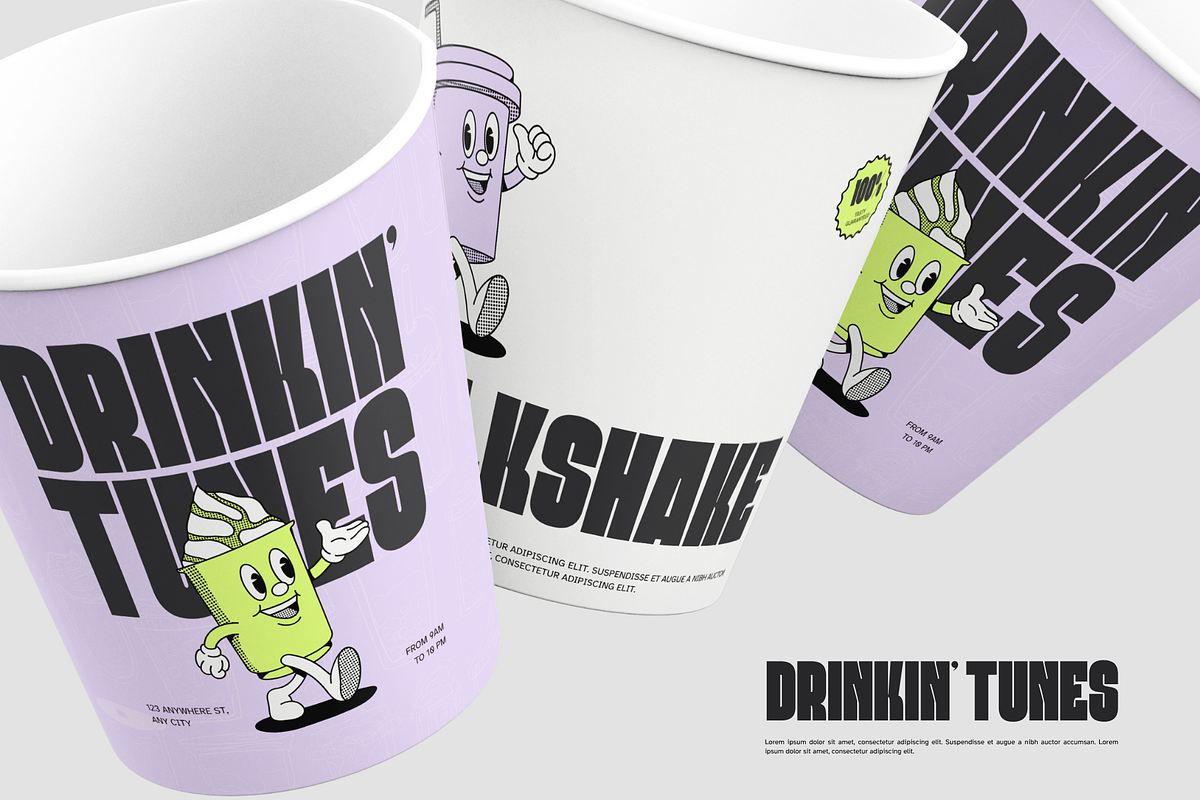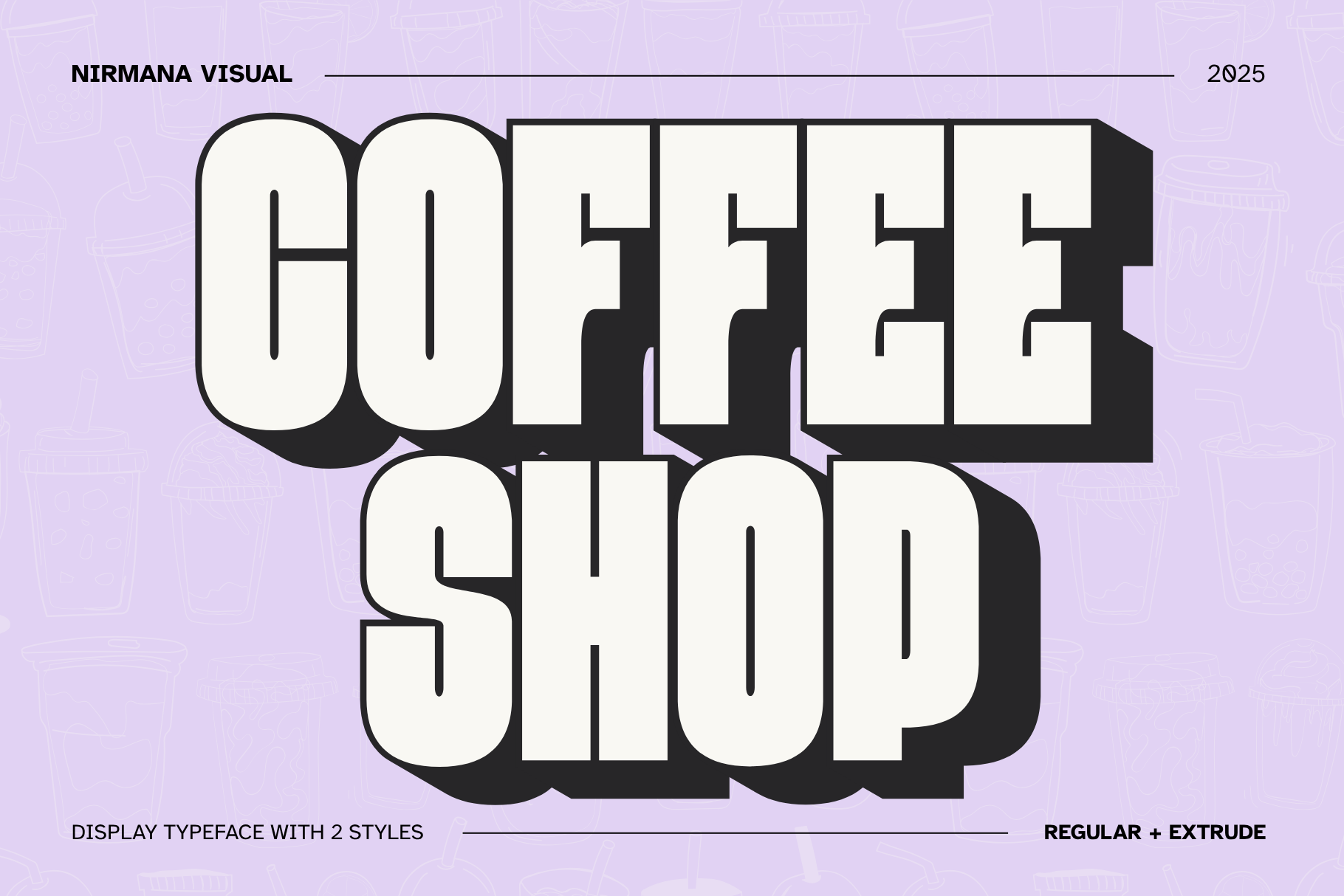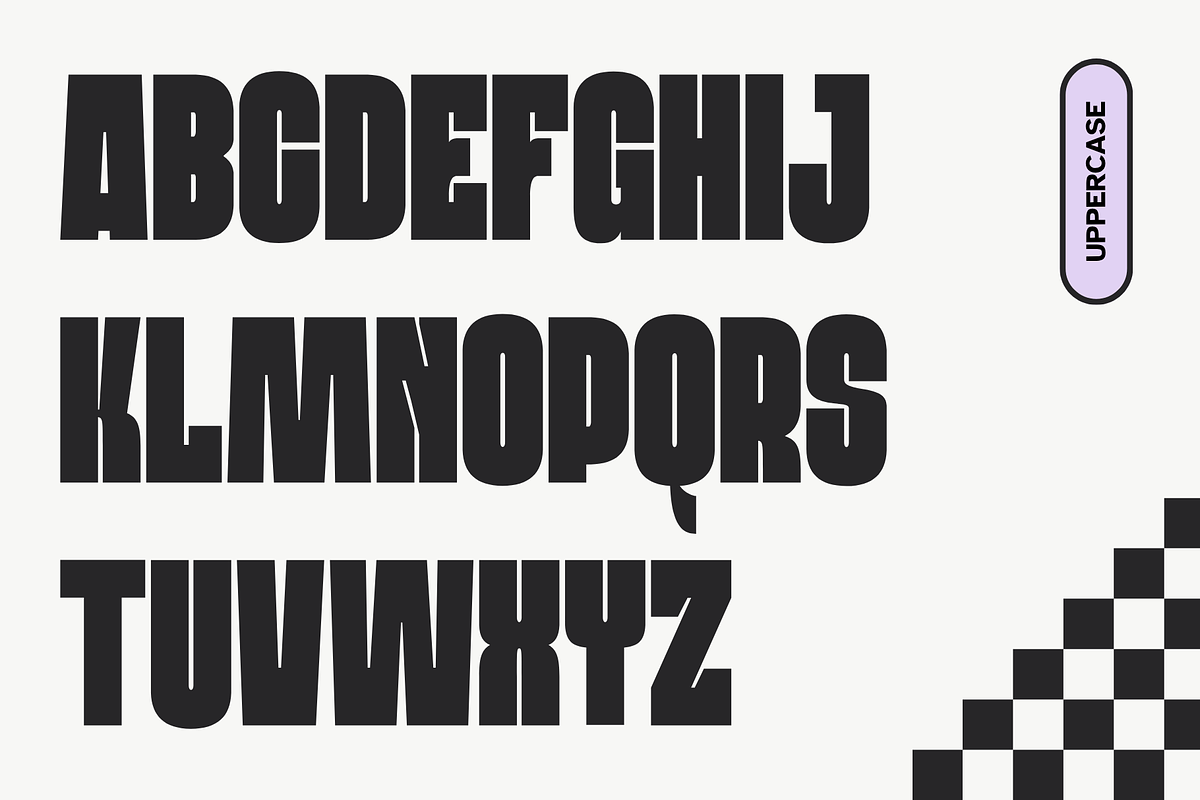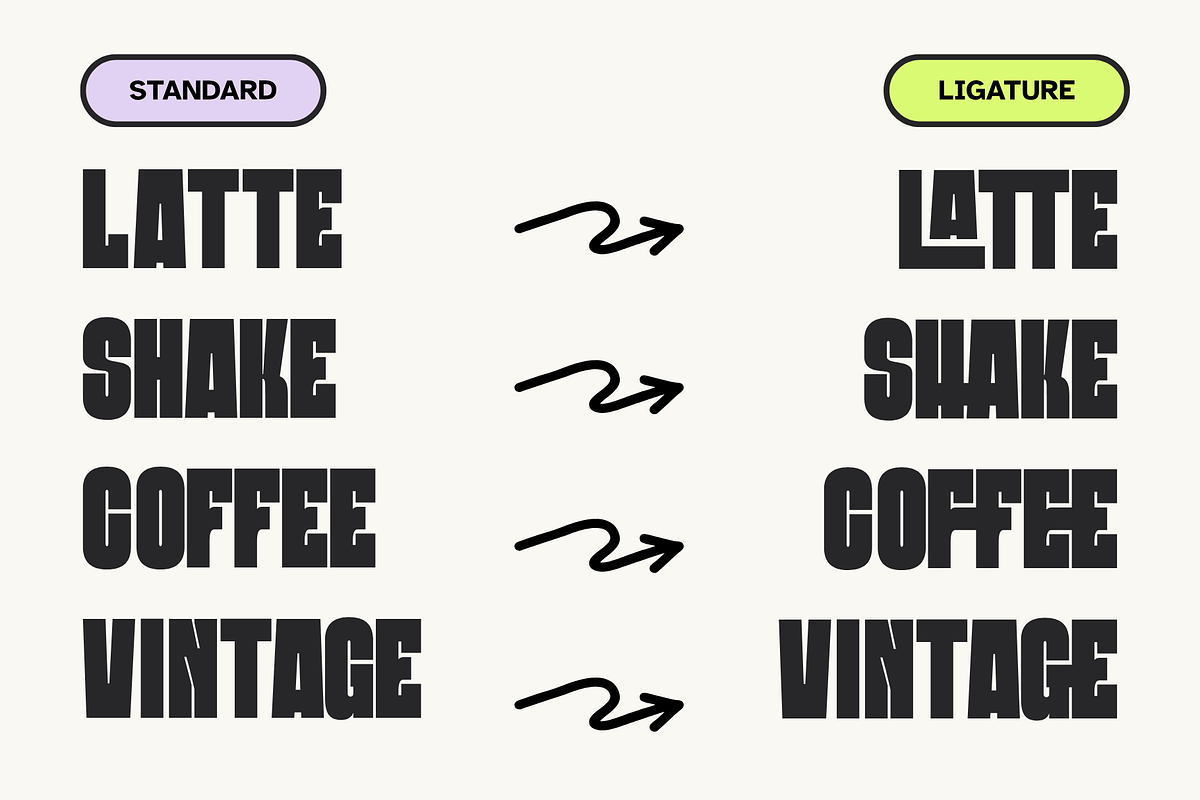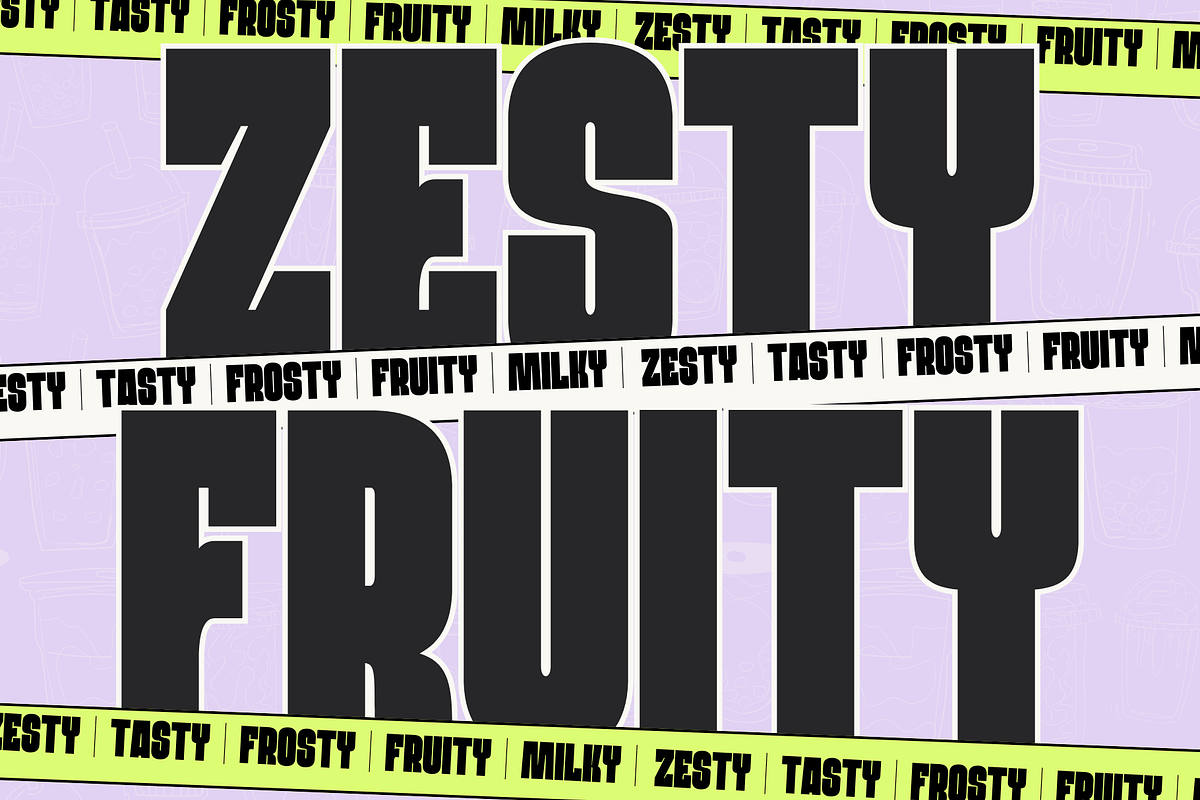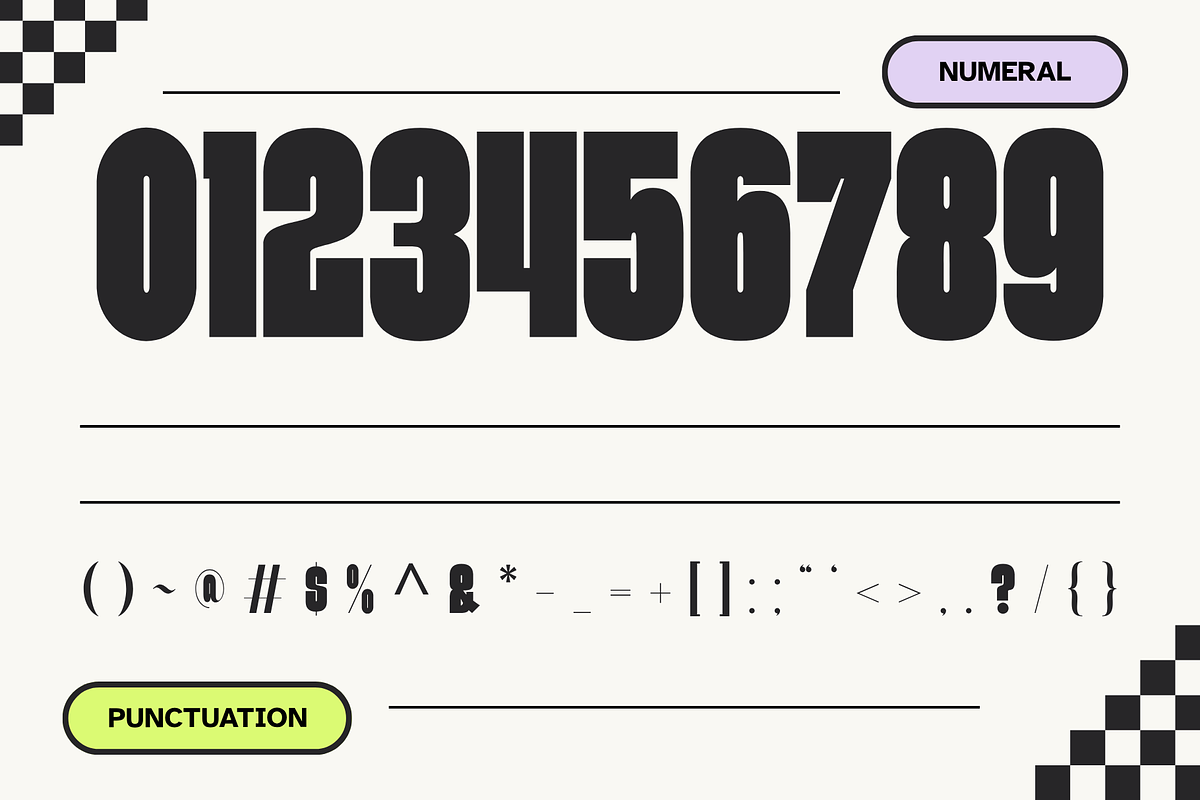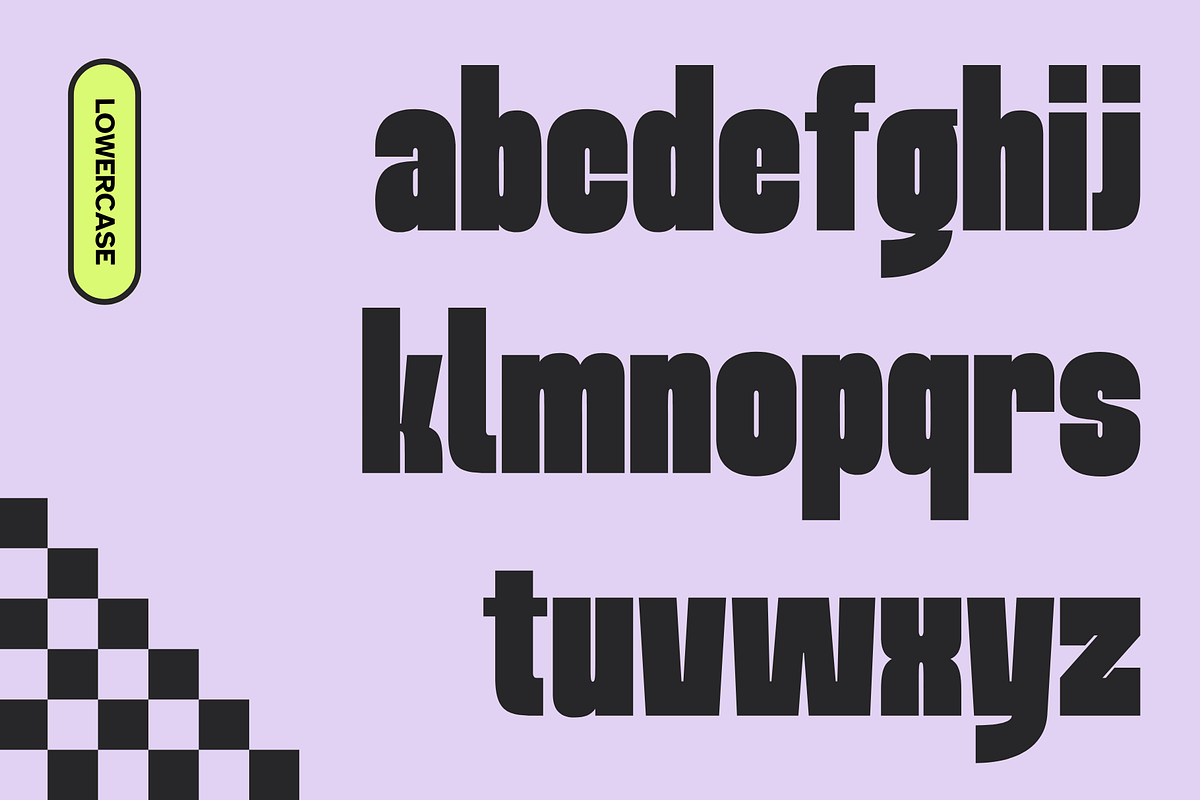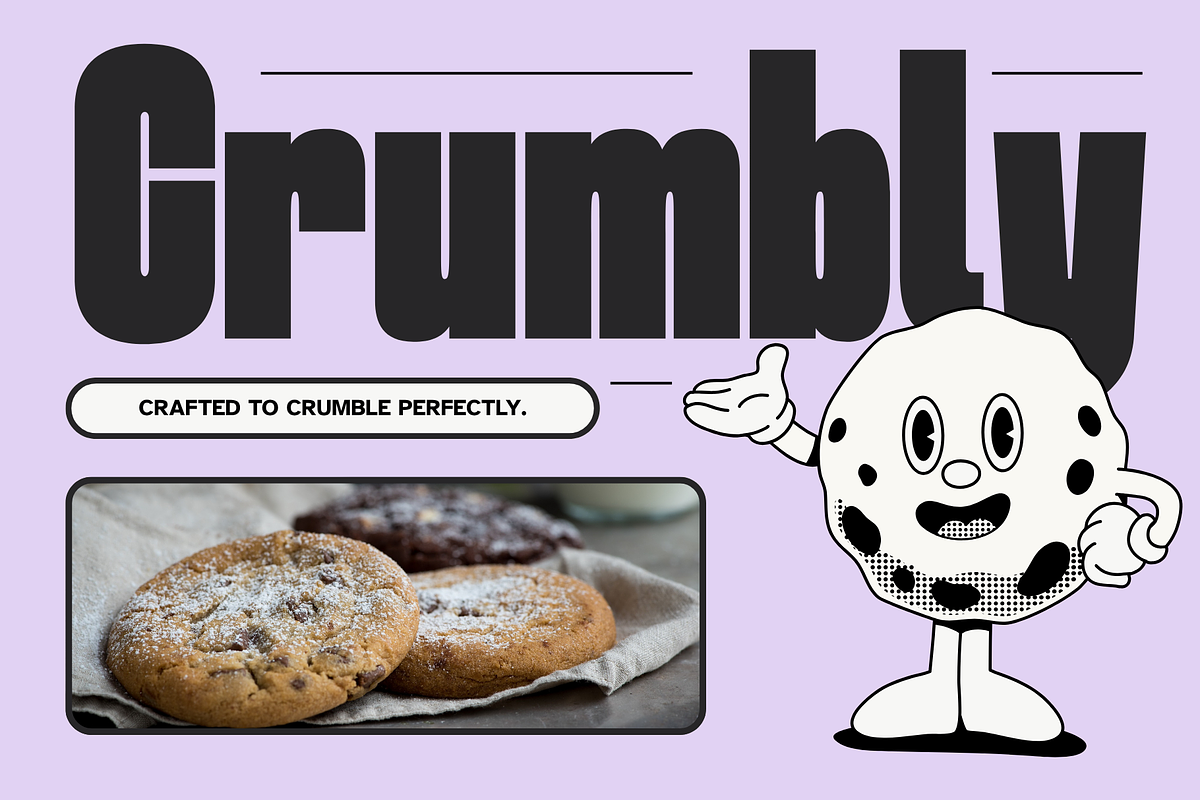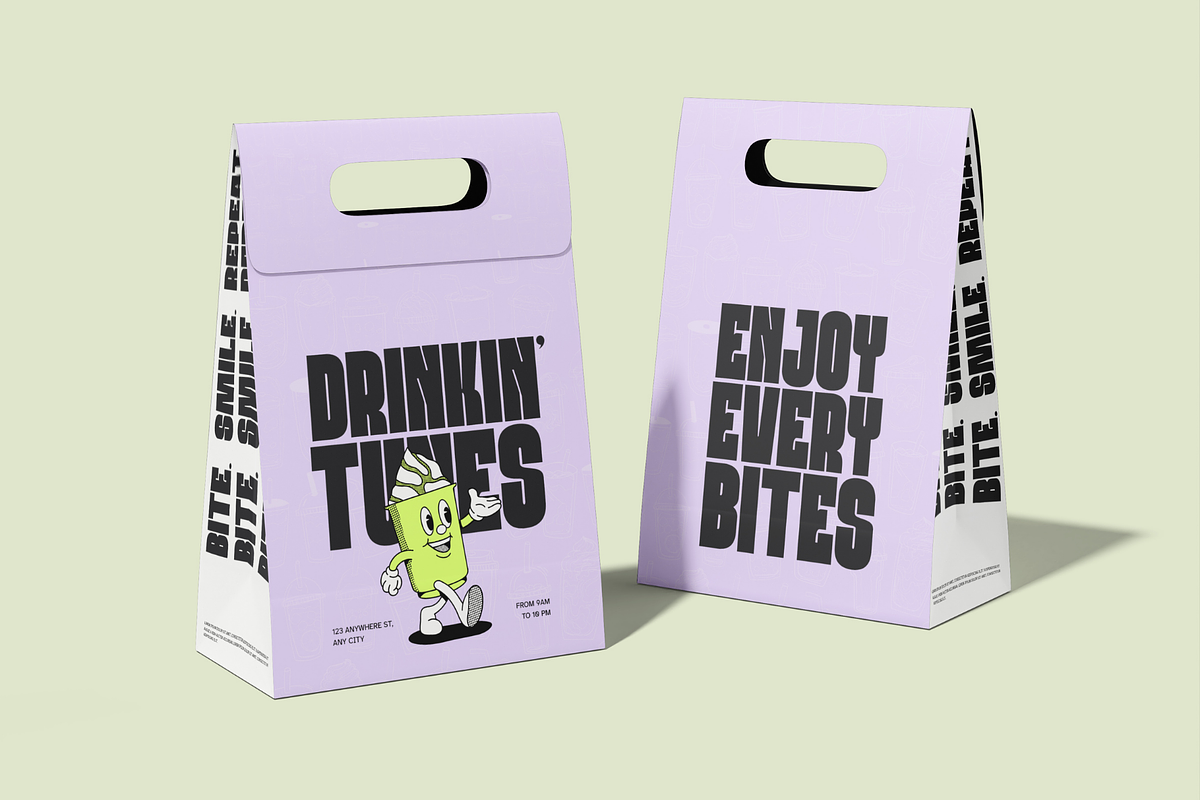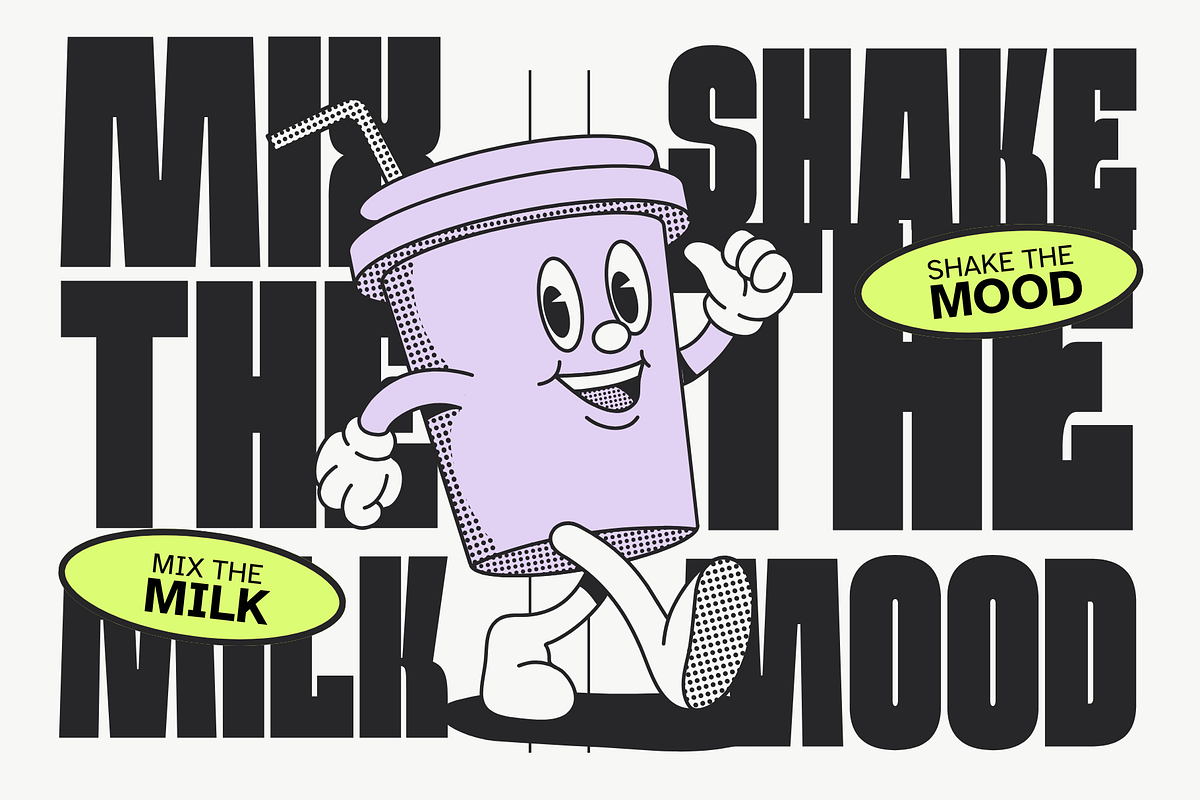
Coffee Shop - Extrude Food Logo Font
Coffee Shop is a bold and stylish sans-serif font inspired by the warmth and energy of your favorite café. Designed for food, beverage, and branding projects, it captures a friendly and modern vibe that feels both cozy and professional. With Regular and Extrude styles, Coffee Shop brings depth and personality to menus, packaging, logos, and social media designs. Its clean letterforms and confident weight make every word look deliciously inviting — just like your first sip of morning coffee.